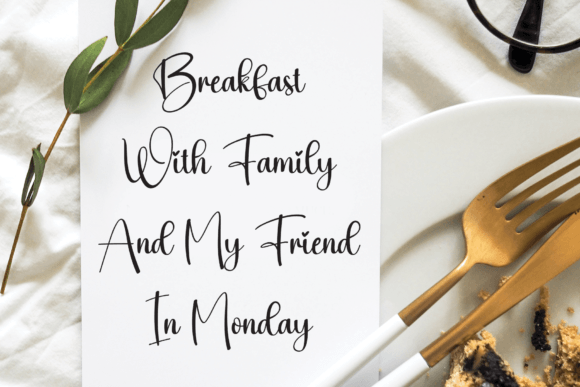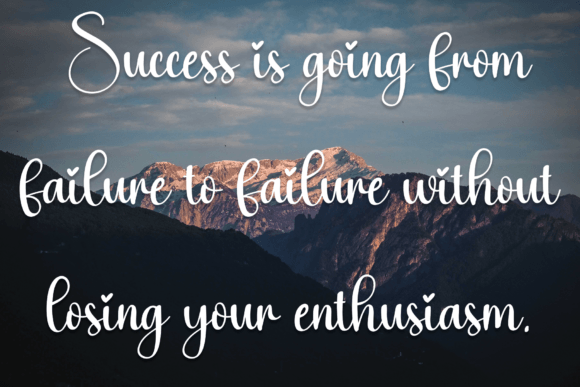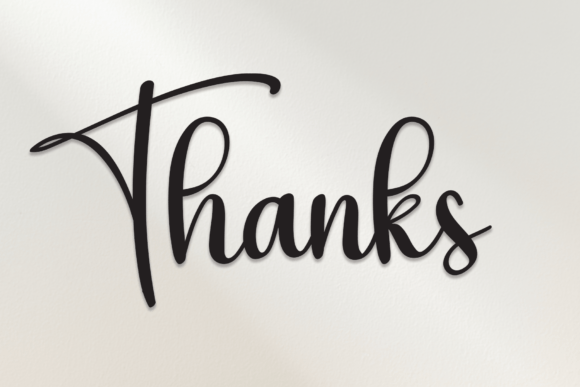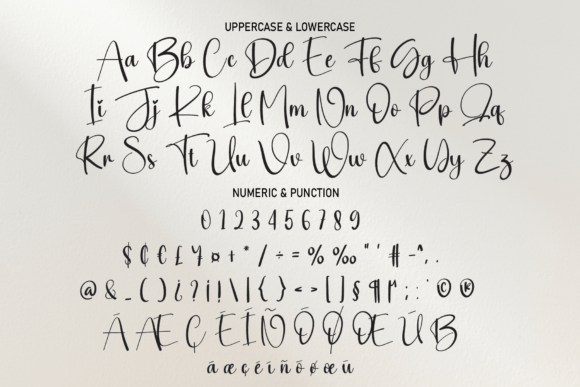
Visible Font
About Visible Font
“Visible’s latest style letters present an ideal fusion of modernity and handwritten allure, making them a perfect fit for an extensive range of applications. Whether employed in wall displays, wedding invitations, social media post logos, advertisements, product packaging, designs, labels, photography, watermarks, invitations, or stationery, these letters impart a handwritten touch to any project.
The charm of Visible’s latest style lies in its contemporary design and adaptability, positioning it as a dependable choice for a diverse array of creative endeavors. This font becomes a go-to option for designers seeking a typeface that effortlessly marries a handwritten aesthetic with a modern flair.
Whether you’re crafting captivating logos or designing sophisticated wedding invitations, Visible’s latest style stands out as a font that elevates the overall visual appeal. Its letters exude charm and effortlessly adapt to a variety of design contexts.
Envision Visible’s latest style enhancing your projects, introducing a handwritten allure that infuses character and uniqueness. The font becomes the defining element that sets your designs apart, creating a visual experience that resonates with authenticity and style.
As you delve into the nuances of Visible’s latest style, you’ll discover its potential to transform ordinary projects into visually captivating expressions. Let it be the font that injects a touch of handwritten elegance into your creative vision, making your designs stand out with a delightful and modern aesthetic. With Visible’s latest style, every letter becomes a brushstroke of contemporary sophistication.”